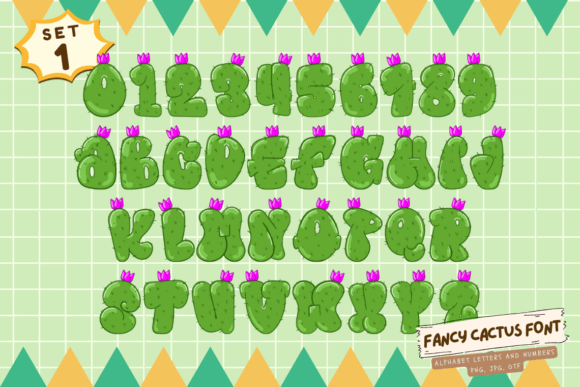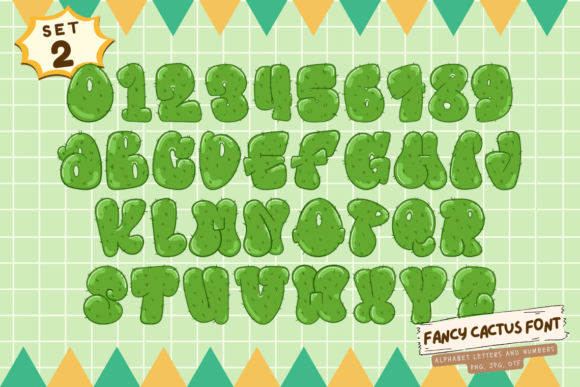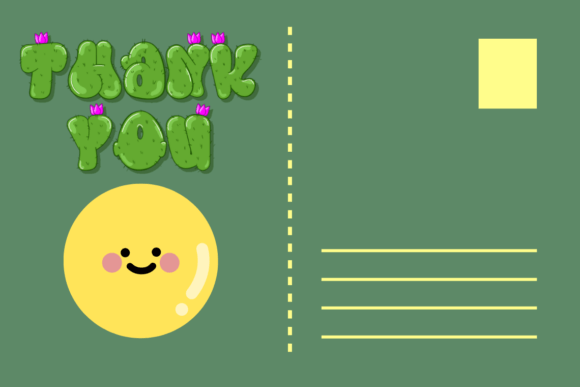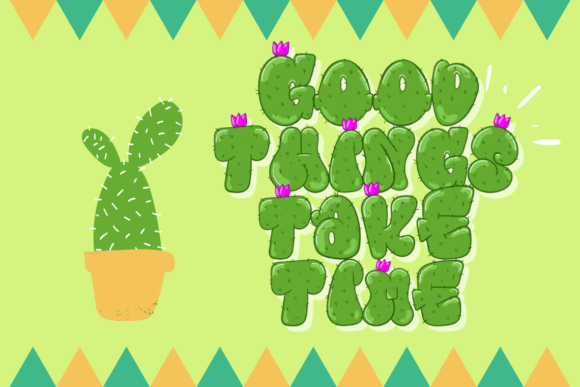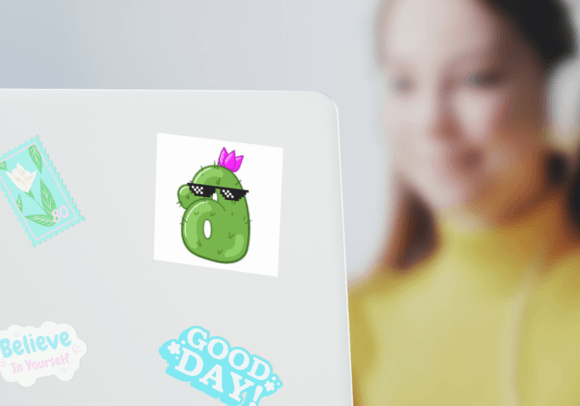
Get Ready to Spice Up Your Designs with a Dash of Desert Charm
You know that moment when you’re brainstorming ideas for a new project and suddenly, a burst of creativity strikes? It’s like the whole world opens up to possibilities, and you can’t wait to bring your vision to life. For graphic designers, that spark often comes from finding the perfect font to set the tone for their design. That’s where the Fancy Cactus Font comes in – a quirky and playful color font that’s sure to add a touch of whimsy to any project.
This adorable font features vibrant cactus illustrations and is perfect for adding a fun and unique charm to greeting cards, posters, invitations, and more. With its desert vibes and playful spirit, the Fancy Cactus Font is a valuable addition to any designer’s toolkit, offering endless possibilities for creative expression and self-expression.
Fancy Cactus Font Key Features
- Unique Characteristics: Distinctive cactus-inspired design elements, including thorns and flowers
Fancy Cactus Font Review
Overall, I think the Fancy Cactus Font is a charming addition to any design project. ✨ It has a playful, whimsical feel that’s sure to add some personality to your work. Here are some of the things that work well:
- Unique character designs: Each letter has its own distinct personality, making it easy to see the “cactus” theme come alive.
- Flexibility: The font comes in a range of weights and styles, making it suitable for everything from logos to body text.
- Fun and creative: This font is perfect for designers who want to add a bit of whimsy to their work.
- Limited language support: The font only includes support for a few languages, which may limit its usability in certain projects.
- Not suitable for formal projects: While the font is perfect for creative projects, it may not be the best choice for formal documents or corporate materials.
- May be difficult to read at small sizes: Some of the more intricate designs may become difficult to read at smaller font sizes.
Overall, I think the Fancy Cactus Font is a great choice for designers who want to add a bit of personality to their work. While it has some limitations, its unique character designs and flexibility make it a valuable addition to any design project.
Tips for Getting the Most Out of Fancy Cactus Font
Use Fancy Cactus Font for designs that require a whimsical and playful touch. It pairs well with bright colors and bold graphics. Experiment with different font sizes and combinations to add visual interest to your design.
Fancy Cactus Font is ideal for:
- Wedding invitations and decorations
- Party and event graphics
- Children’s book
Alternatives to Fancy Cactus Font
Great Vibes is a modern, elegant script font perfect for creating a sophisticated and luxurious feel. It’s ideal for use in branding, invitations, and other high-end designs. Great Vibes is more refined and polished compared to Fancy Cactus Font, which has a more playful and whimsical tone.
Amarante Font
Amarante is a beautiful, handwritten font that exudes a sense of warmth and personality. It’s suitable for use in creative projects, such as advertising, social media, and editorial designs. Amarante has a more organic feel compared to Fancy Cactus Font, which is more stylized and cactus-inspired.
Carolyna Pro is a high-end, elegant script font that’s perfect for use in luxury branding, invitations, and other high-end designs. It’s more refined and sophisticated compared to Fancy Cactus Font, which has a more playful and quirky tone. Carolyna Pro is also more versatile and can be used in a variety of design projects.